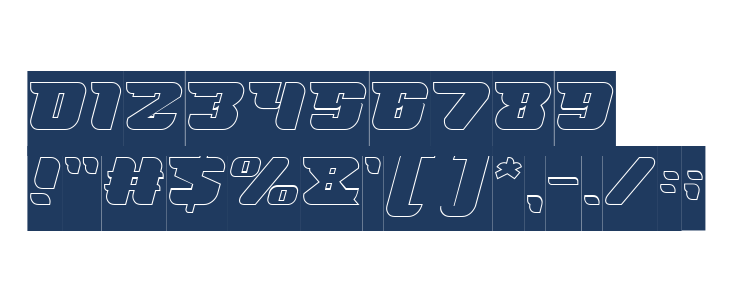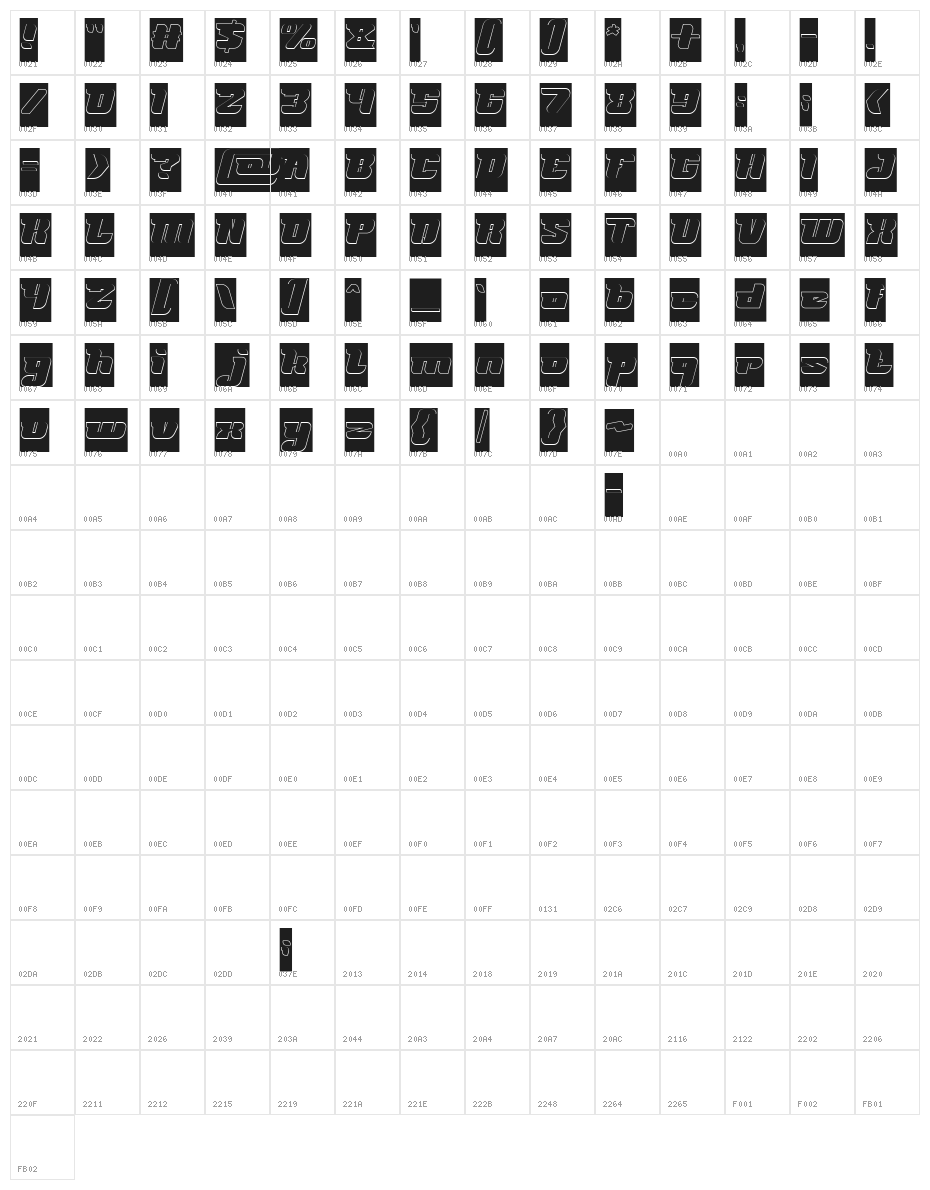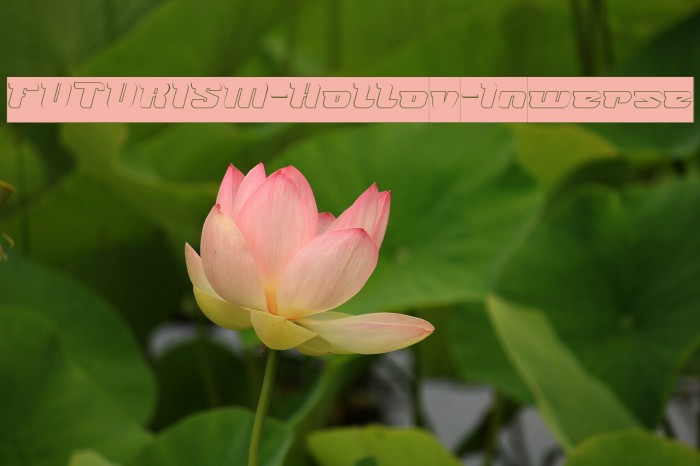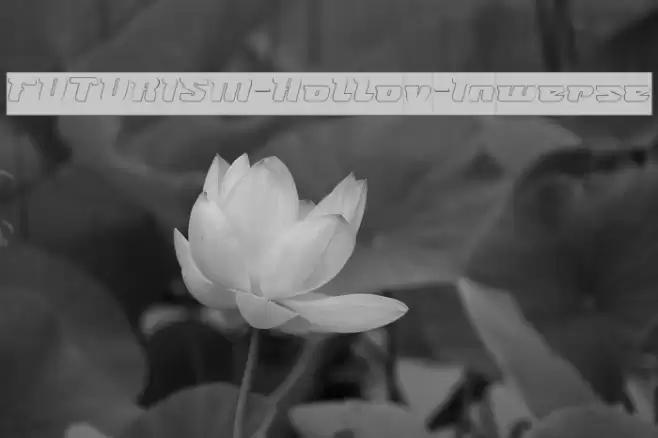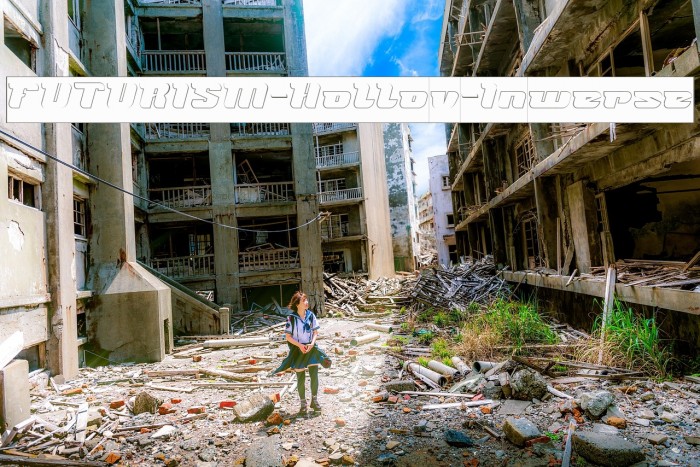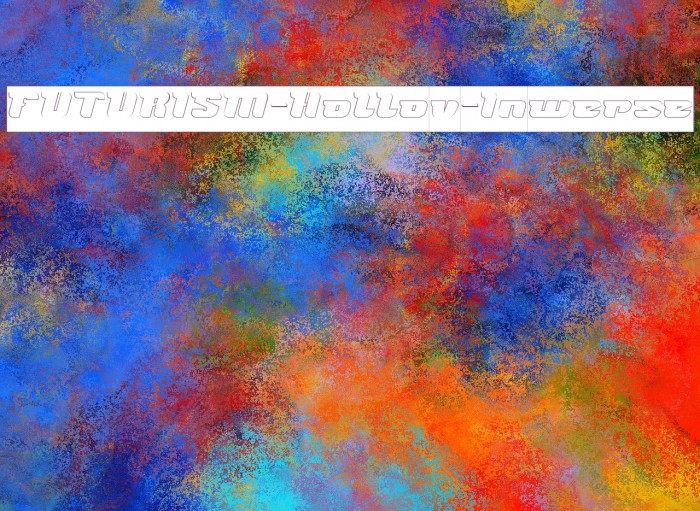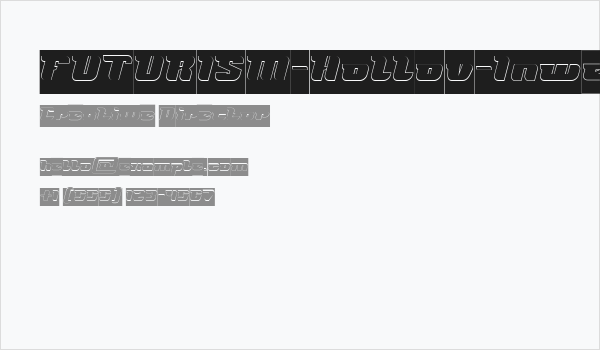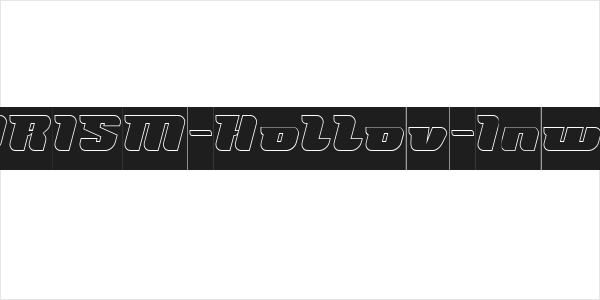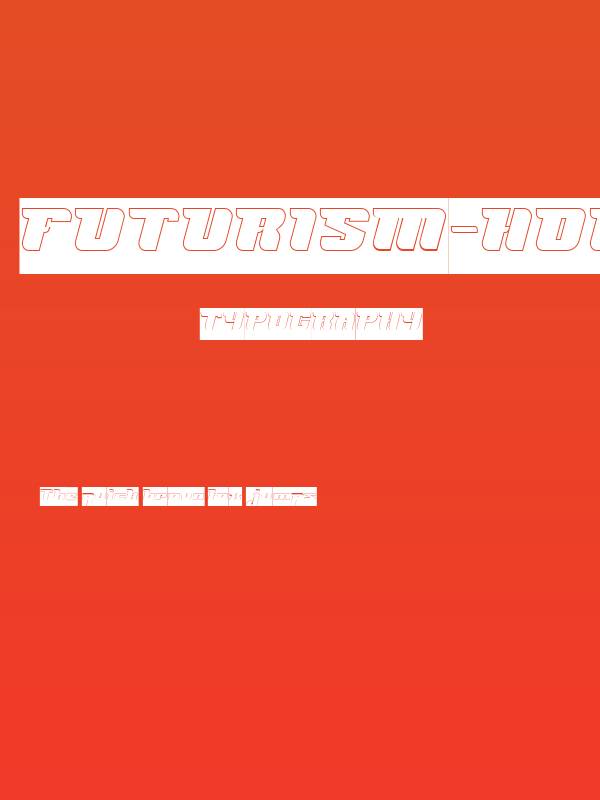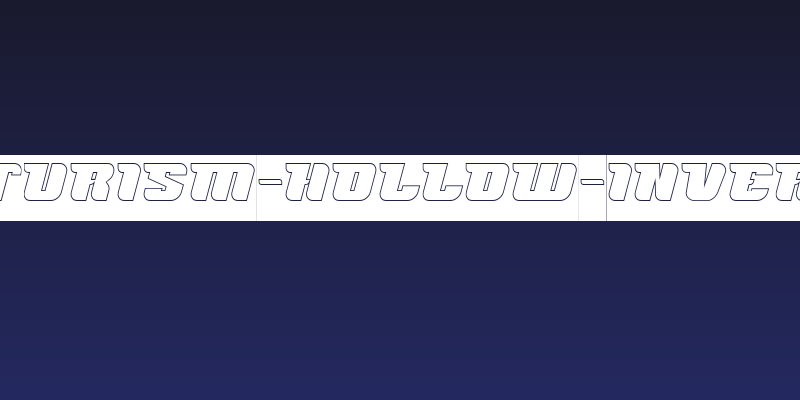
FUTURISM-Hollow-Inverse Font
FUTURISM-Hollow-Inverse Description
This font features a futuristic and hollow design with a bold, geometric structure. The characters are outlined, creating an inverse effect that gives a sense of depth and dimension. The uppercase and lowercase letters maintain a consistent style, with angular and sharp edges that convey a modern and technological feel. The numerals and special characters follow the same design principles, ensuring uniformity across all glyphs. This font is ideal for projects that require a contemporary and innovative look, such as tech branding, sci-fi themes, and digital interfaces.
| Proposed Projects | Tech branding, sci-fi themes, digital interfaces, futuristic posters, and video game titles. |